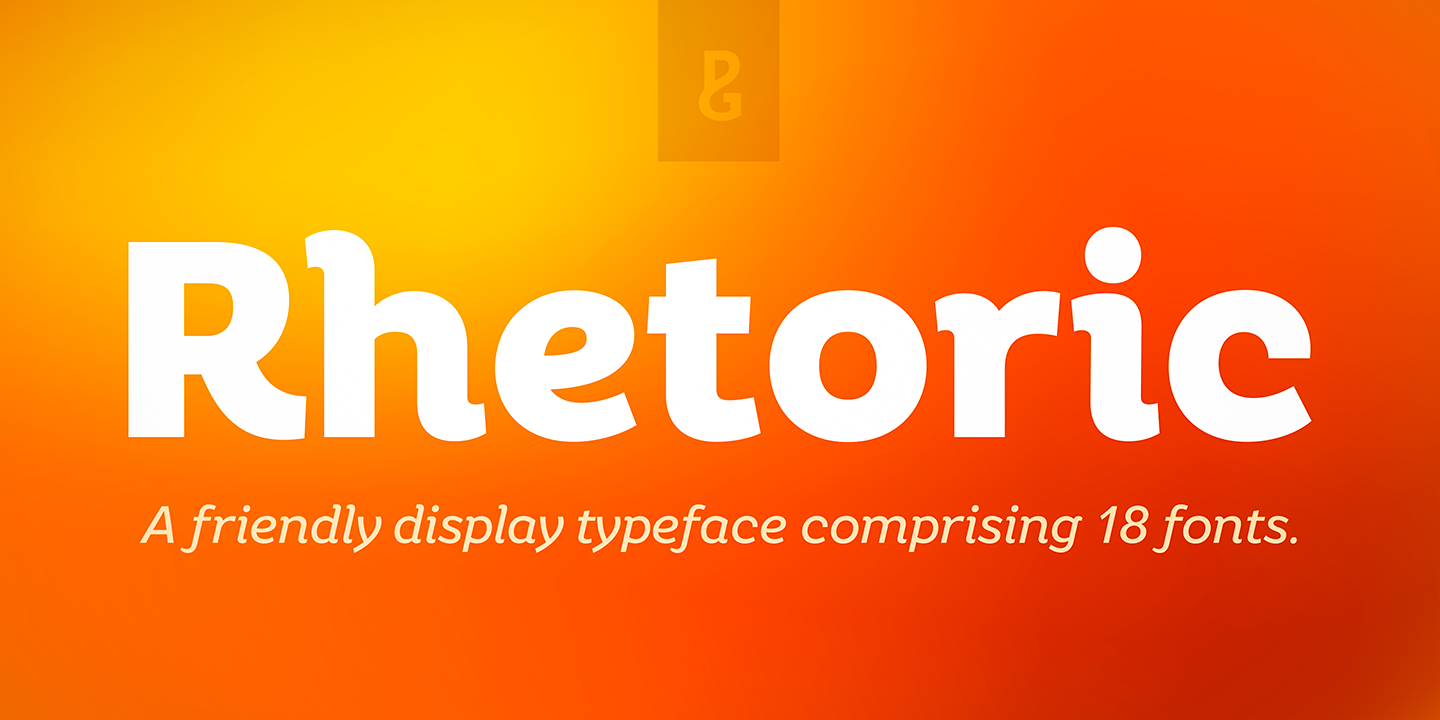
Rhetoric Font is perfect for political campaign materials, persuasive advertising campaigns, debate tournament graphics, public speaking coach branding, law firm presentations, academic conference materials, editorial opinion layouts, and influential communication design. This eloquently persuasive typeface excels in projects requiring argumentative authority and communicative power where persuasion meets sophisticated design excellence.
What makes Rhetoric Font exciting is its masterful embodiment of classical oratory traditions through persuasively crafted letterforms that capture the compelling power of effective communication and reasoned argument. The font features articulate characters with debating proportions and persuasive details that convey intelligence, conviction, and the timeless art of influential discourse. Its argumentative character makes it perfect for legal professionals, political organizations, and communication experts who understand the power of well-crafted arguments and persuasive presentation.
Rhetoric Font family includes multiple weights and persuasive variations that enhance its communicative appeal while providing design flexibility for argumentative and professional applications. The family typically offers light, regular, medium, semibold, and bold weights, along with authoritative alternates, classical symbols, and debate-themed ornaments that complement legal and political design themes perfectly.
Whether you're developing political campaign identity, creating legal presentation materials, or designing persuasive marketing campaigns, Rhetoric Font Free Download provides the perfect argumentative solution for projects requiring communicative authority and persuasive power. This font's intellectual appeal and classical rhetoric heritage make it essential for professionals whose success depends on effective communication and compelling argumentation.
The eloquently crafted letterforms and persuasive proportions of Rhetoric Font create immediate associations with intellectual authority while maintaining excellent readability across all professional communication applications. Its distinctive argumentative personality and classical symbolism make it an invaluable tool for lawyers, politicians, and communication professionals working with persuasive content and influential messaging. Download Rhetoric Font today and strengthen your persuasive communications with this intellectually powerful typeface that perfectly captures the timeless art of effective argumentation and influential discourse.